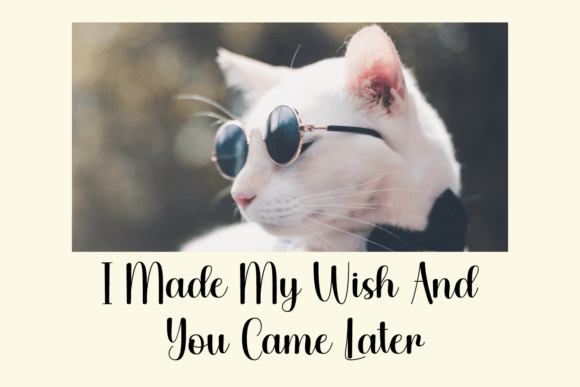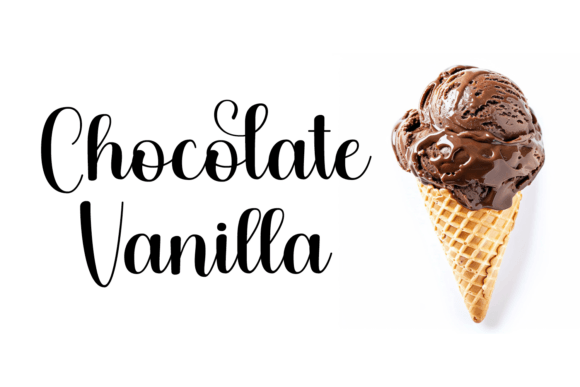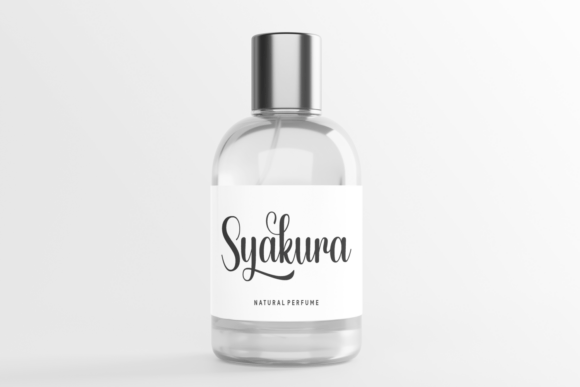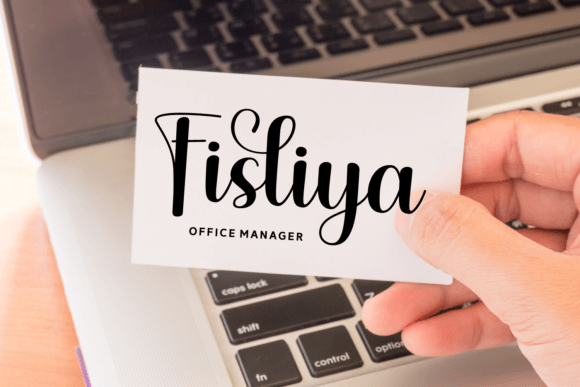
Introducing Destyana Font: Elegant Calligraphy for Every Occasion
In the world of typography, few fonts capture the essence of elegance and sophistication as beautifully as Destyana. This stunning calligraphy script font is designed to bring a touch of classic style with a modern twist to your creative projects. Whether you’re a designer looking for the perfect font for a client’s wedding invitation or a crafter seeking to add a personal touch to handmade cards, Destyana is an excellent choice.
The Beauty of Destyana
Destyana is a beautiful calligraphy script font that features elegant, flowing letters. Its design combines classic style with a modern touch, making it perfect for invitations, greeting cards, and special events. The font’s graceful curves and swirls add a personal and artistic flair to any text. With Destyana, you can transform ordinary text into a work of art that exudes sophistication and charm.
Key Features of Destyana Font
- Elegant Calligraphy Style: Destyana boasts a beautiful calligraphy style that is both classic and modern. Its elegant letters are perfect for creating stunning invitations, greeting cards, and other special event materials.
- Graceful Curves and Swirls: The font features graceful curves and swirls that add a personal and artistic touch to any text. These flourishes make Destyana perfect for creating unique and eye-catching designs.
- Versatile and Highly Readable: Despite its elegant style, Destyana is highly readable, making it suitable for both digital and print materials. Whether you’re designing a wedding invitation or a blog post, Destyana ensures that your text is clear and easy to read.
- Perfect for Creative Projects: Destyana is ideal for a wide range of creative projects, including invitations, greeting cards, posters, and more. Its versatility makes it a valuable addition to any designer’s font collection.
Uses of Destyana Font
Destyana’s versatility and elegance make it suitable for various design projects. Here are some popular uses of the font:
- Wedding Invitations: Add a touch of elegance to your wedding invitations with Destyana. Its beautiful calligraphy style and flowing letters create a romantic and sophisticated look.
- Greeting Cards: Whether it’s a birthday, anniversary, or holiday card, Destyana adds a personal and artistic touch to your greetings.
- Event Posters: Create stunning posters for special events, such as galas, fundraisers, or conferences, with Destyana’s elegant and modern style.
- Logos and Branding: Destyana can also be used for logos and branding materials, especially for businesses that want to convey a sense of elegance and sophistication.
Tips for Using Destyana Font
To make the most of Destyana, consider the following tips:
- Pair with Complementary Fonts: Pair Destyana with simple, sans-serif fonts for a balanced look. This contrast will make your design stand out and ensure readability.
- Adjust Font Size and Color: Experiment with different font sizes and colors to create visual hierarchy and emphasis in your design.
- Use for Headings and Titles: Use Destyana for headings and titles to add a touch of elegance to your design. Its beautiful calligraphy style is perfect for making a statement.
Destyana is a beautiful calligraphy script font that brings a touch of elegance and sophistication to any design project. Its classic style with a modern twist makes it perfect for a wide range of creative projects, from invitations and greeting cards to event posters and logos. With its graceful curves and swirls, Destyana adds a personal and artistic flair to any text, making it a valuable addition to any designer’s font collection.
Whether you’re a designer or a crafter, Destyana is an excellent choice for adding a touch of elegance to your projects. So, why settle for ordinary fonts when you can create something extraordinary with Destyana?